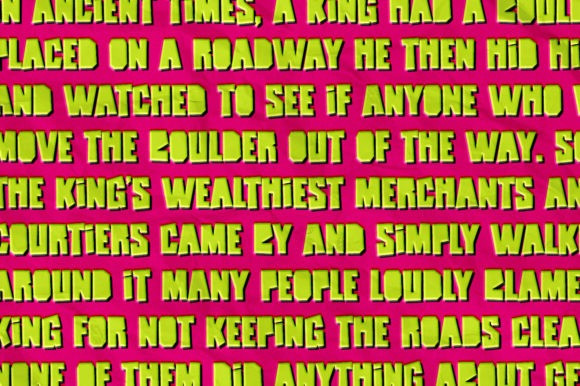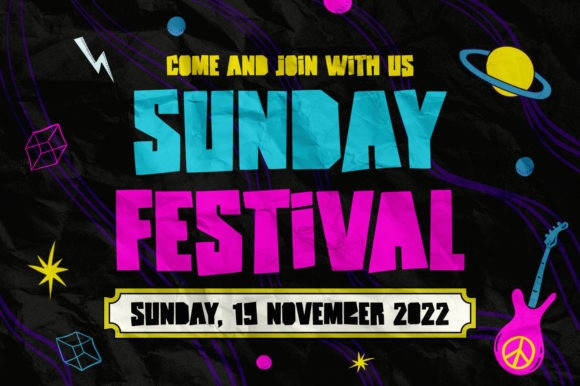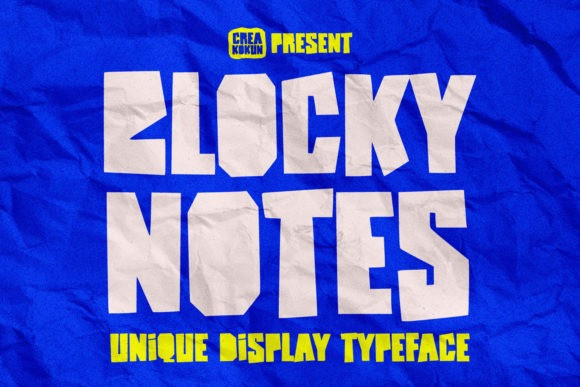
Blocky Notes Font
Blocky Notes Display Font is a cool and chunky lettered display font. Add this colorful and bold display font to each of your creative ideas, and notice how it makes them come alive!